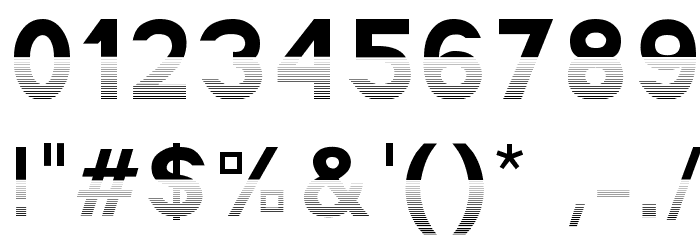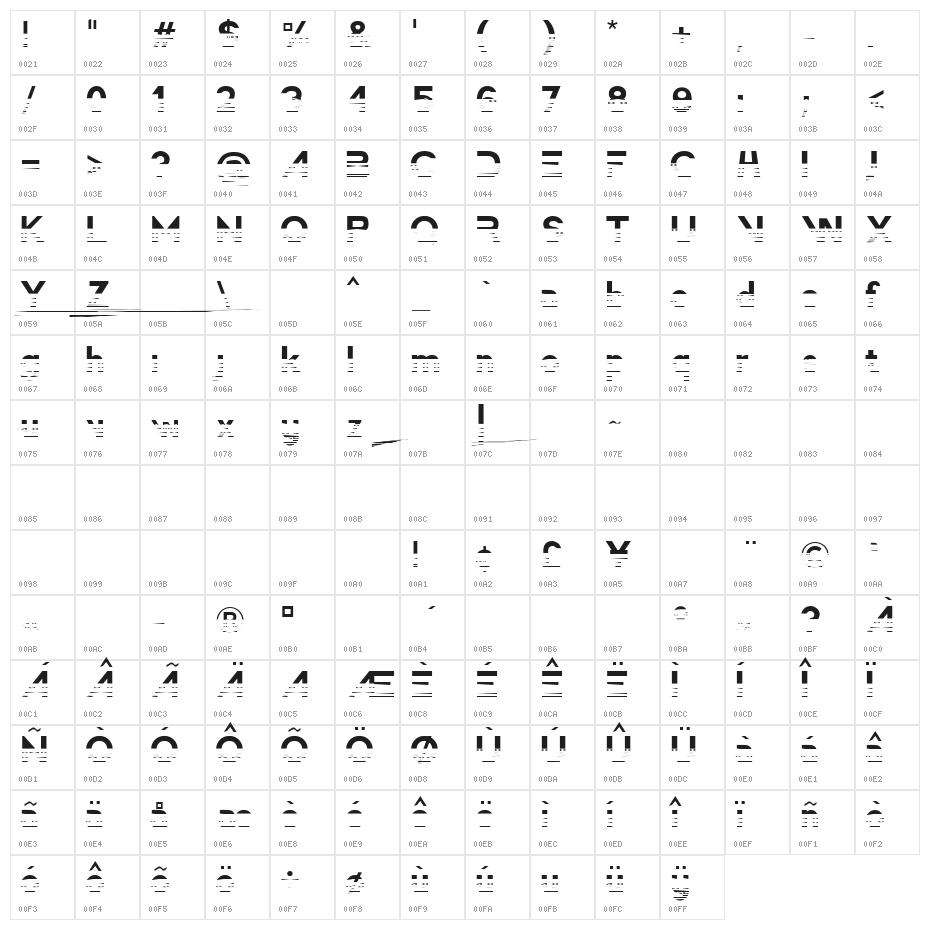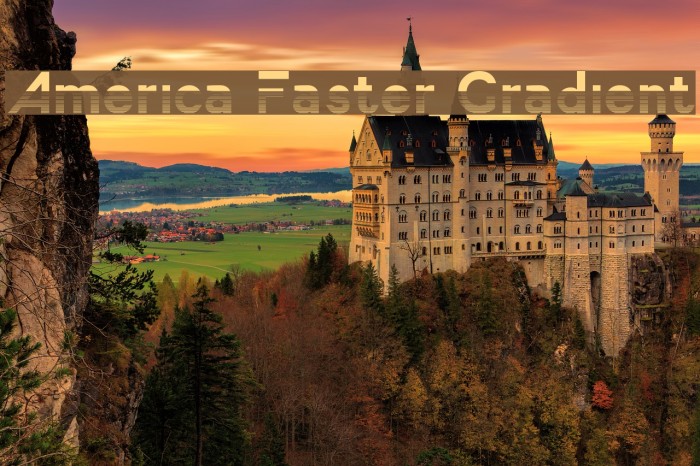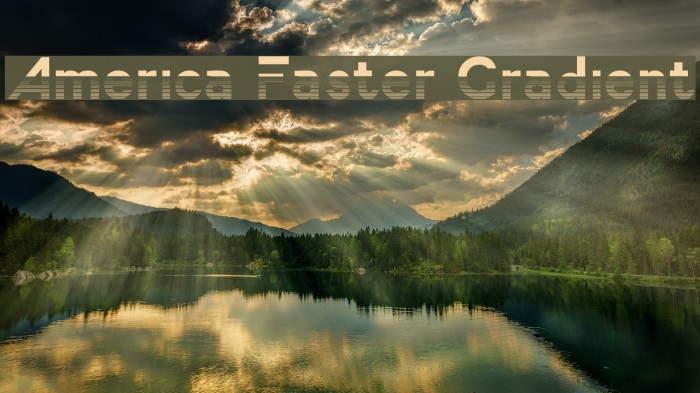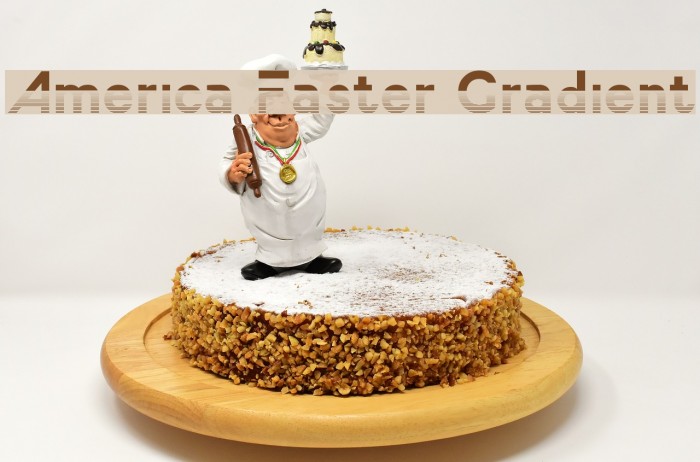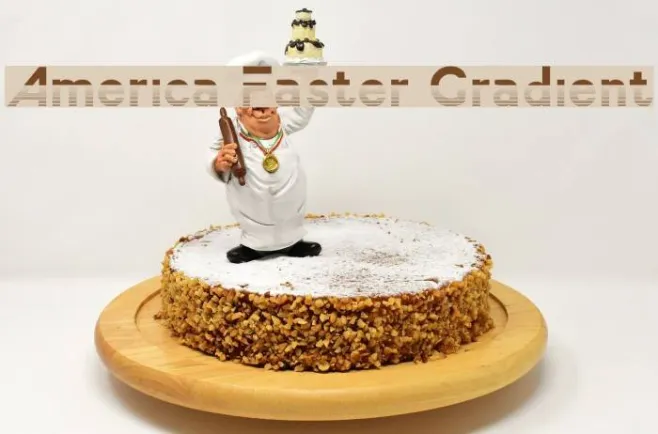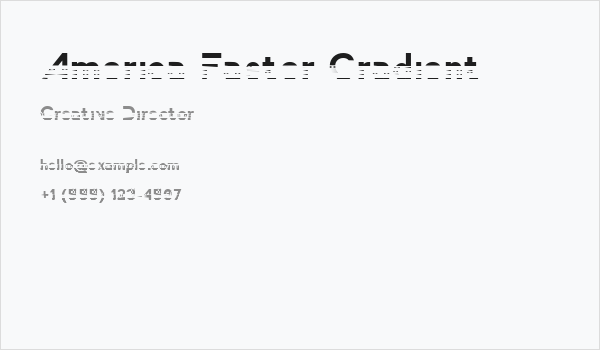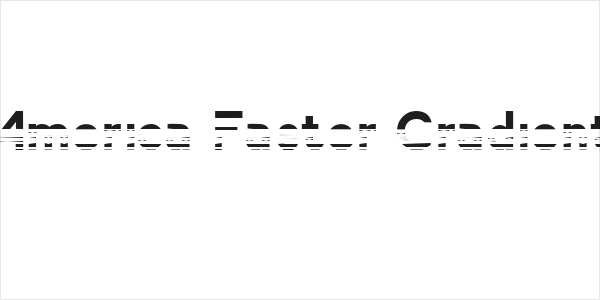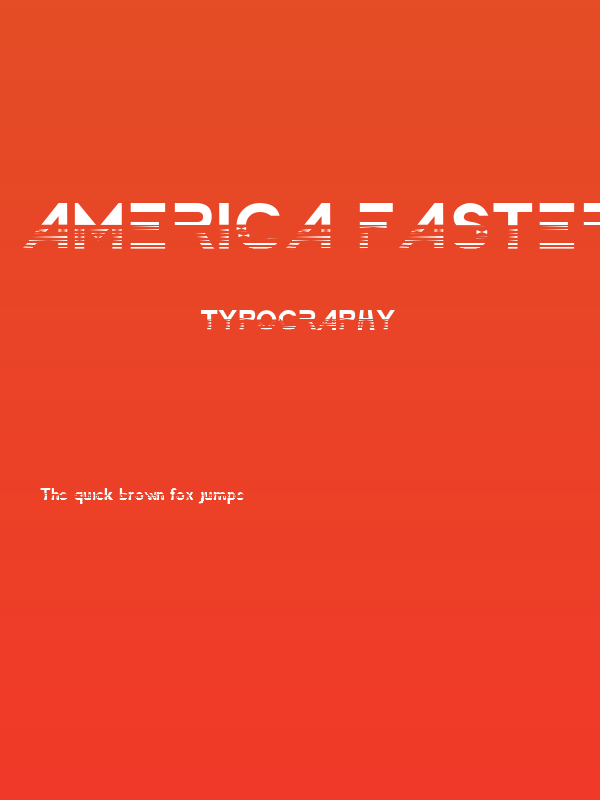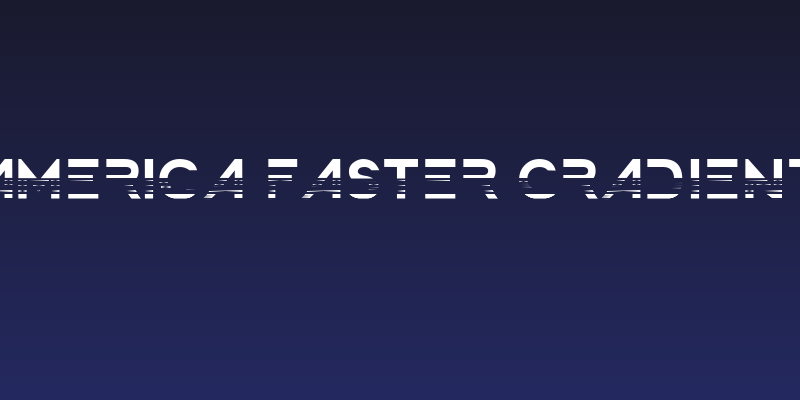
America Faster Gradient Font
America Faster Gradient Description
This font features a bold, modern design with a unique gradient effect created by horizontal lines. The uppercase and lowercase letters, as well as numbers and special characters, exhibit a futuristic and dynamic appearance. The lines give a sense of motion and speed, making it ideal for projects that require a sense of energy and forward-thinking. The characters are wide and have a strong presence, suitable for impactful headlines and branding.
| Proposed Projects | Ideal for sports branding, tech company logos, futuristic posters, and dynamic advertising campaigns. |